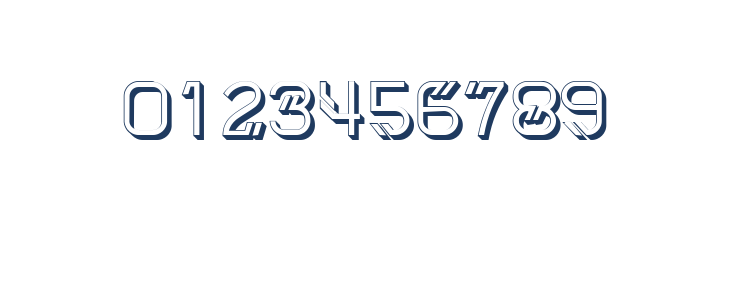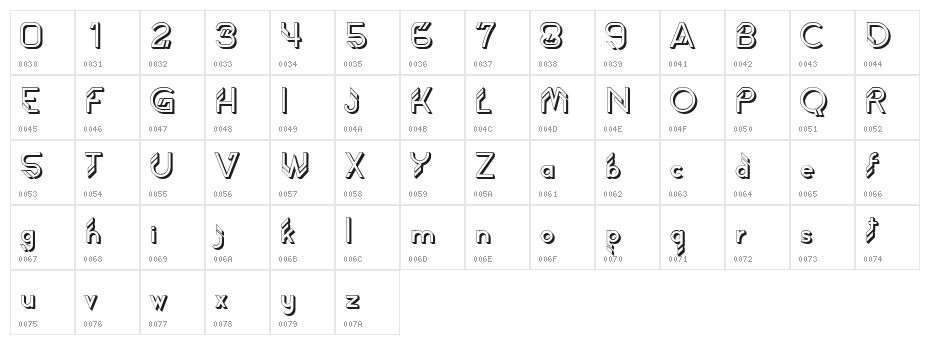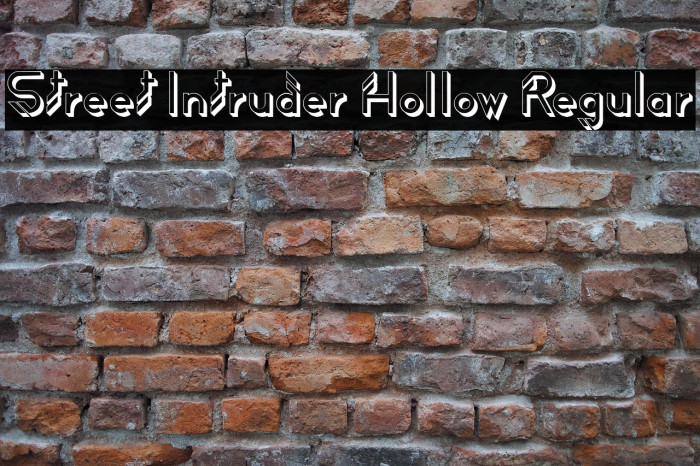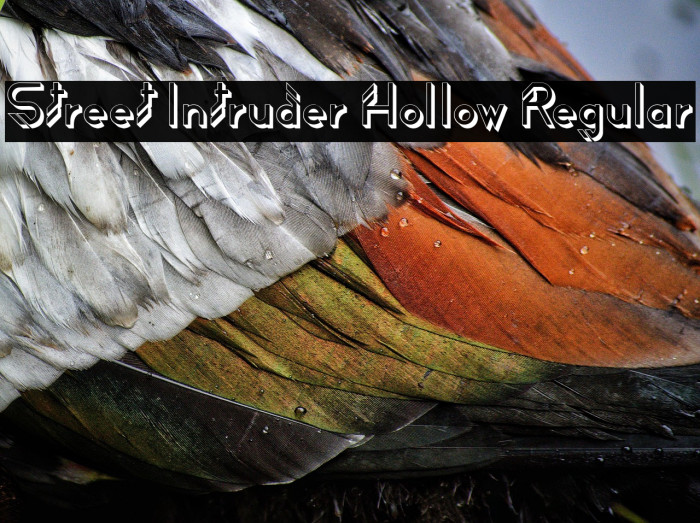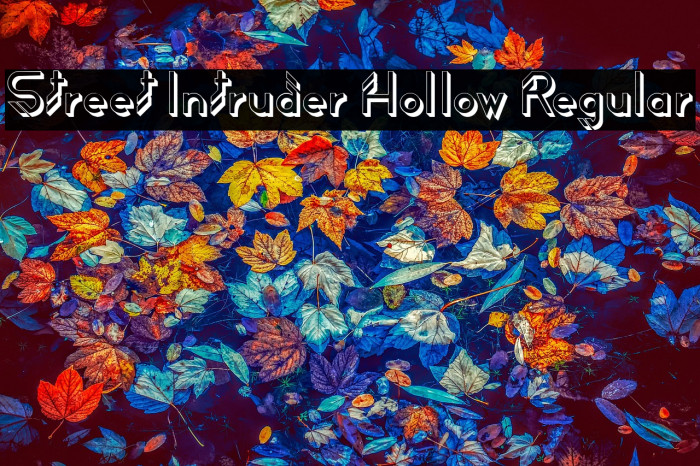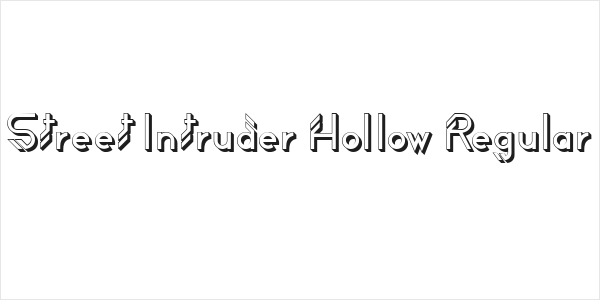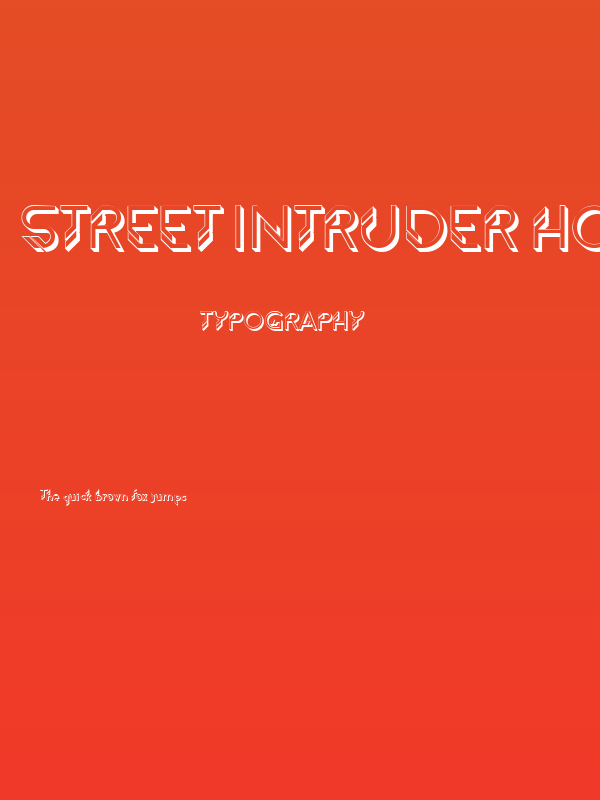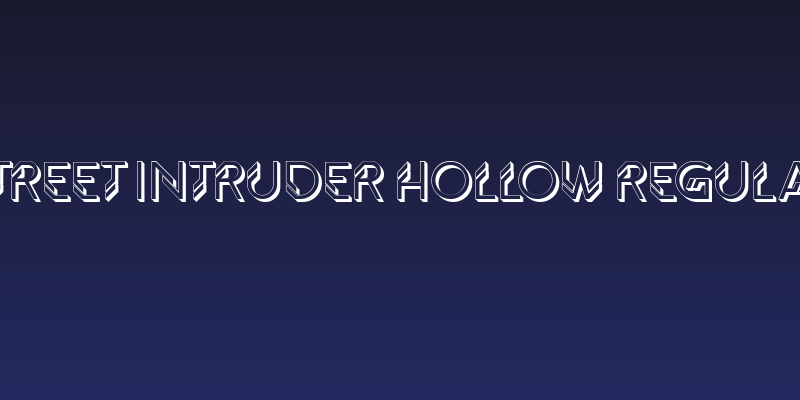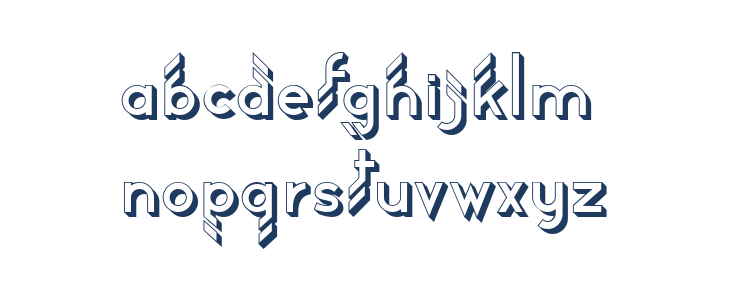
This font features a bold, hollow design with a modern, urban aesthetic. The letters are characterized by a three-dimensional effect, created through the use of shadowing and outlines, giving the impression of depth and movement. The uppercase and lowercase letters maintain a consistent style, with sharp angles and clean lines. The numerals and special characters follow the same design principles, ensuring uniformity across all glyphs. This font's unique style makes it particularly eye-catching and suitable for creative projects.
| Proposed Projects | Ideal for street art designs, urban-themed posters, music album covers, and modern branding projects. |